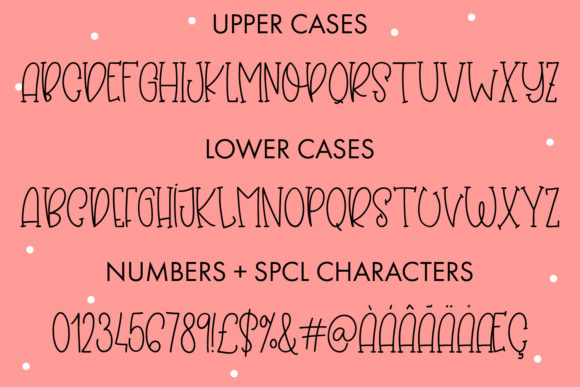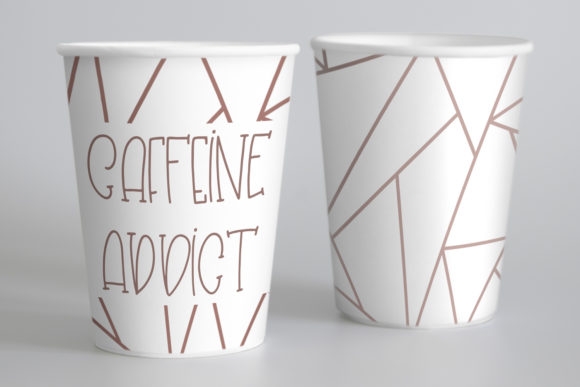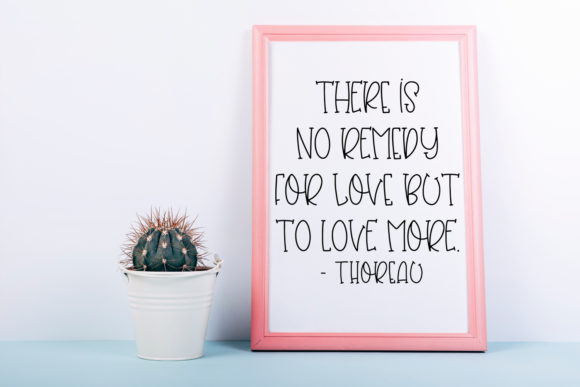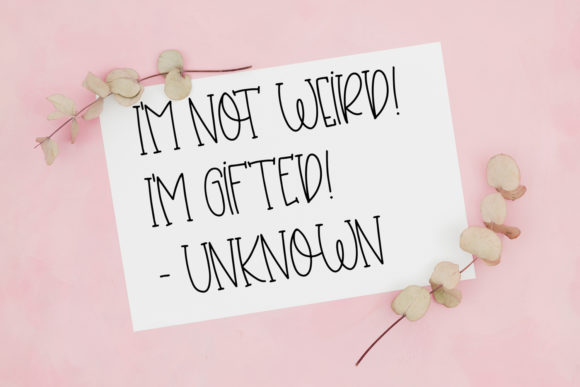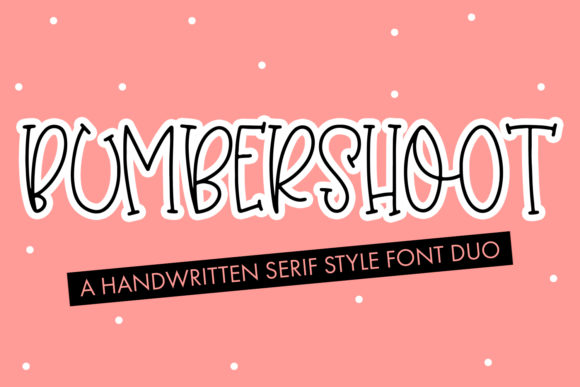
Bumbershoot Font: Add a Joyful Touch to Your Designs
Are you tired of using the same old fonts in your designs? Do you want to add a playful and quirky touch to your projects? Look no further than the Bumbershoot font! This cute and handwritten font is perfect for designers and crafters who want to add a bit of whimsy to their work.
What is Bumbershoot Font?
Bumbershoot is a unique and quirky handwritten font that is sure to add a joyful touch to any design. With its incredibly unique and slightly sloppy style, this font is perfect for projects that require a bit of personality. Whether you’re working on a logo, a poster, or a digital project, Bumbershoot is sure to make your design stand out.
Characteristics of Bumbershoot Font
So, what makes Bumbershoot font so special? Here are a few of its key characteristics:
• Handwritten style: Bumbershoot is a handwritten font, which gives it a personal and organic feel.
• Unique and quirky: This font has a one-of-a-kind style that’s sure to add a bit of whimsy to your designs.
• Slightly sloppy: Bumbershoot has a relaxed, casual feel that’s perfect for projects that require a bit of personality.
• Cute and playful: This font is perfect for projects that require a bit of fun and playfulness.
Uses for Bumbershoot Font
So, what can you use Bumbershoot font for? The possibilities are endless! Here are a few ideas to get you started:
• Logos and branding: Bumbershoot is perfect for creating unique and memorable logos that will help your brand stand out.
• Posters and flyers: This font is great for creating eye-catching posters and flyers that will grab people’s attention.
• Digital projects: Bumbershoot is perfect for digital projects like social media graphics, blog posts, and website headers.
• Crafting and scrapbooking: This font is also great for crafters and scrapbookers who want to add a personal touch to their projects.
Tips for Using Bumbershoot Font
Here are a few tips for using Bumbershoot font in your designs:
• Use it sparingly: Because Bumbershoot is a bold and playful font, it’s best to use it sparingly to avoid overwhelming your design.
• Pair it with other fonts: Bumbershoot looks great when paired with other fonts, such as serif or sans-serif fonts.
• Experiment with colors: This font looks great in a variety of colors, so don’t be afraid to experiment and find the perfect color for your design.
In conclusion, Bumbershoot font is a unique and quirky handwritten font that’s perfect for designers and crafters who want to add a joyful touch to their projects. With its cute and playful style, this font is sure to make your designs stand out. Whether you’re working on a logo, a poster, or a digital project, Bumbershoot is a great choice. So why not give it a try and see how it can add a bit of whimsy to your designs?